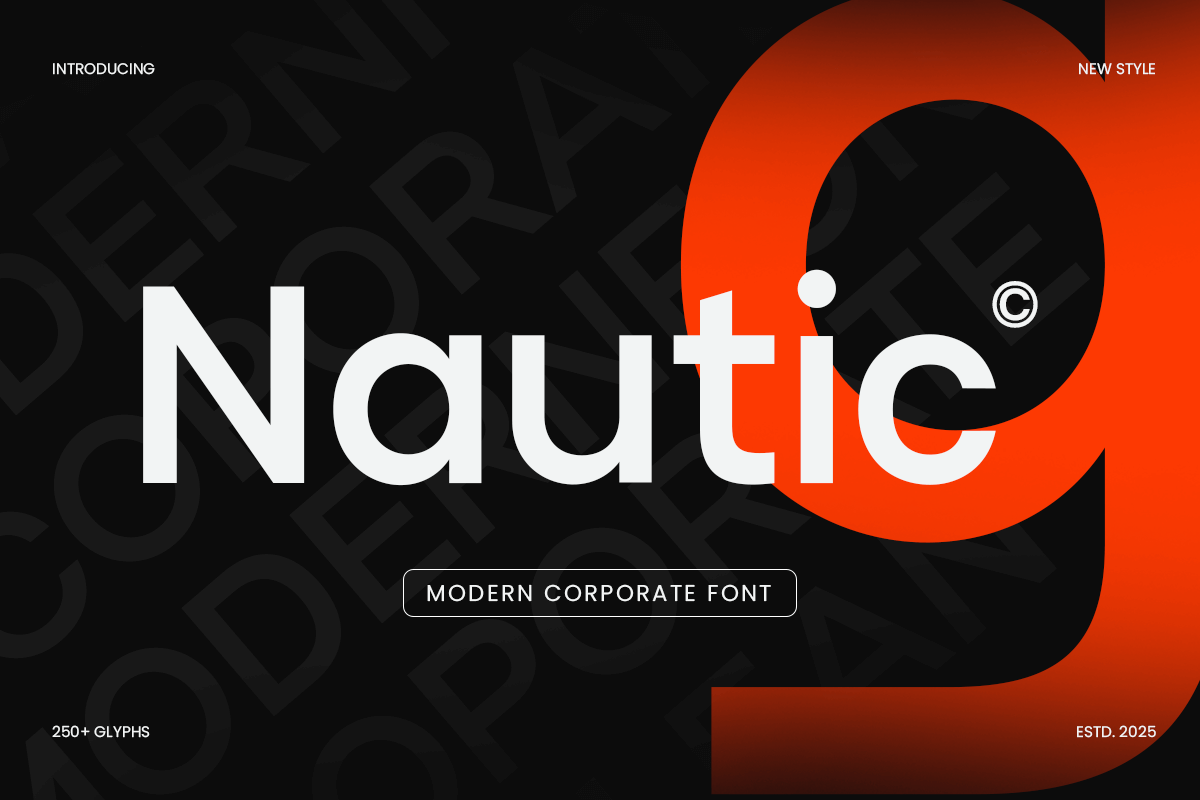
Nautic
-Modern Corporate FontNautic - Modern Corporate Font
Nautic is a modern corporate font designed to bring a polished, professional look to your branding and business design projects. With its clean lines and geometric precision, Nautic is perfect for creating sleek logos, high-impact corporate identities, and contemporary business designs.
Whether you're working on a tech startup, financial services brand, or professional consulting firm, Nautic provides a refined and modern touch to your brand's visual identity. Its versatility makes it ideal for everything from website design to marketing materials and corporate stationery.
Nautic – Modern Corporate Font Features
Sleek, geometric letterforms with a modern corporate feel
Ideal for logos, business branding, and digital design
Clean, professional design with great versatility
OpenType features for enhanced typographic flexibility